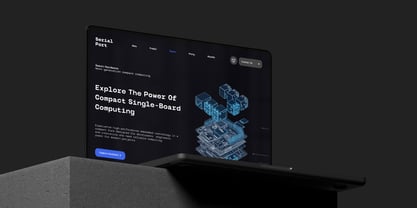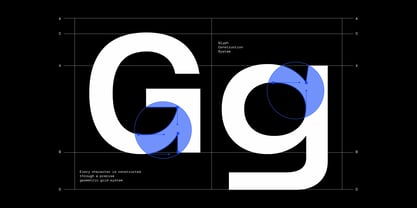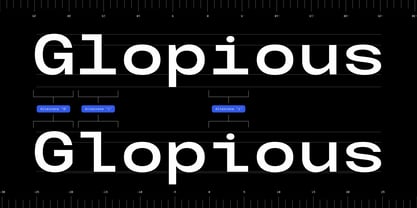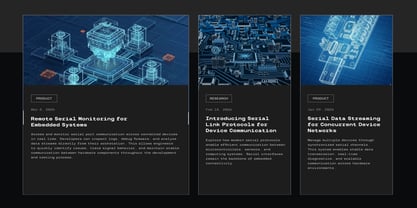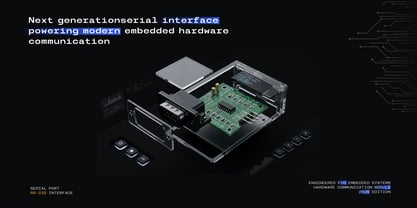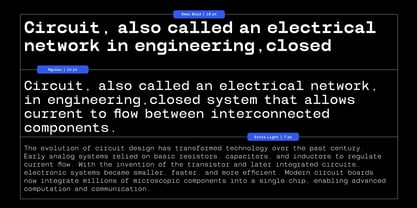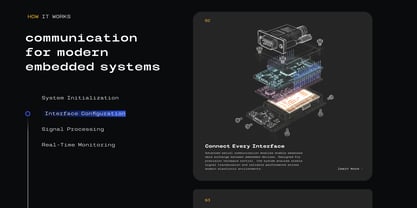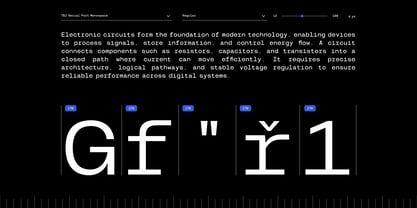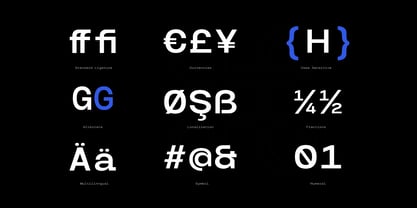
TBJ Serial Port Monospace
by Taboja Studio
TBJ Serial Port is a modern monospace typeface developed with a focus on clarity, consistency, and practical use in digital environments. It draws from the structured nature of traditional monospace fonts, where uniform character widths create a steady visual rhythm that works well across both technical and design contexts. The typeface is built on a grid-based system, allowing each character to align cleanly without disrupting readability. This approach makes TBJ Serial Port suitable for interfaces, coding environments, and layouts where precision and spacing play an important role. At the same time, small refinements in certain letterforms help reduce the rigid feel often associated with monospace designs. As a variable font with 8 weights, TBJ Serial Port offers enough range to support different levels of emphasis from lighter text settings to more defined headings without breaking its overall consistency. This flexibility can be useful in UI systems, dashboards, or editorial layouts that require a cohesive typographic structure. The inclusion of Latin Pro character support expands its usability across multiple languages, making it a practical option for broader communication needs. Overall, TBJ Serial Port is a modern monospaced font designed for digital use, balancing structure with subtle detail. It works well in contexts that benefit from clarity and uniform spacing, while remaining visually controlled and adaptable.
Designers: Yusilo Oktaprima Ardani
Foundry: Taboja Studio